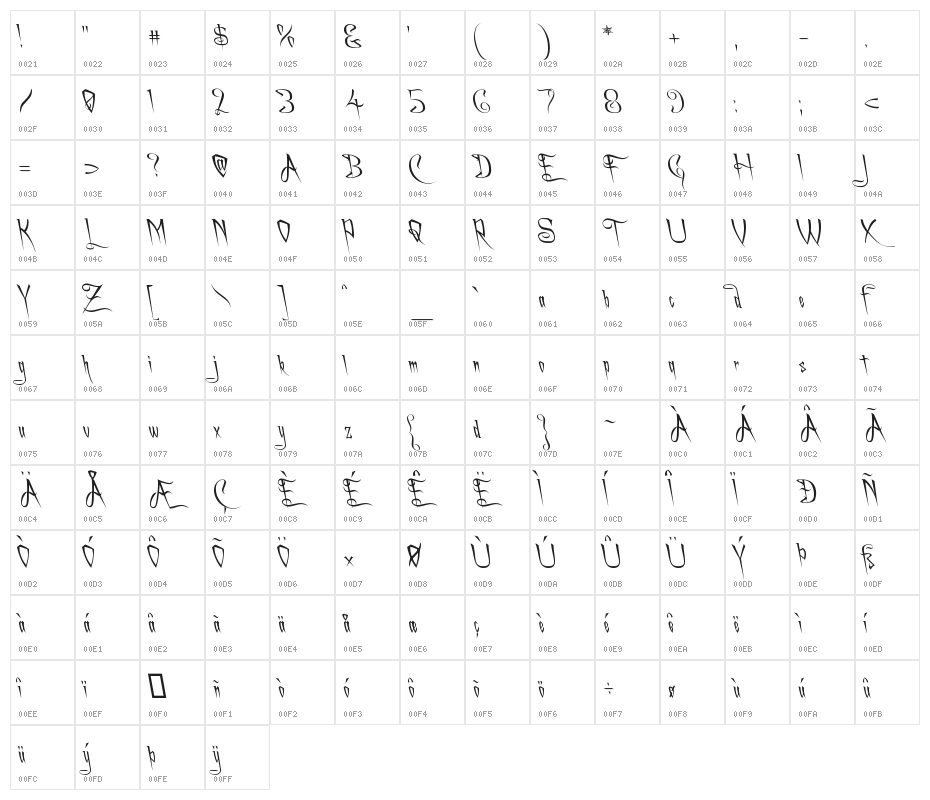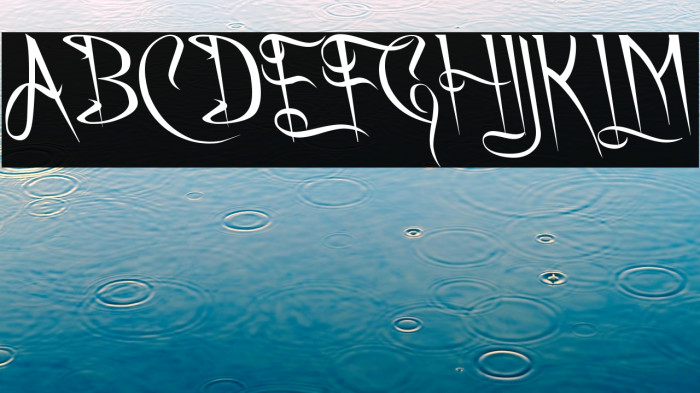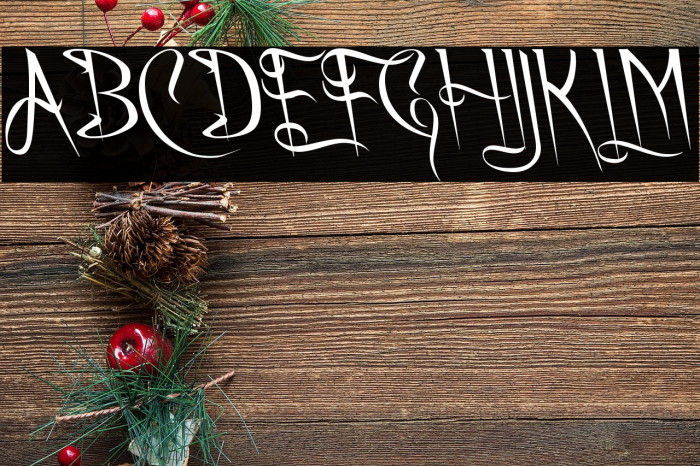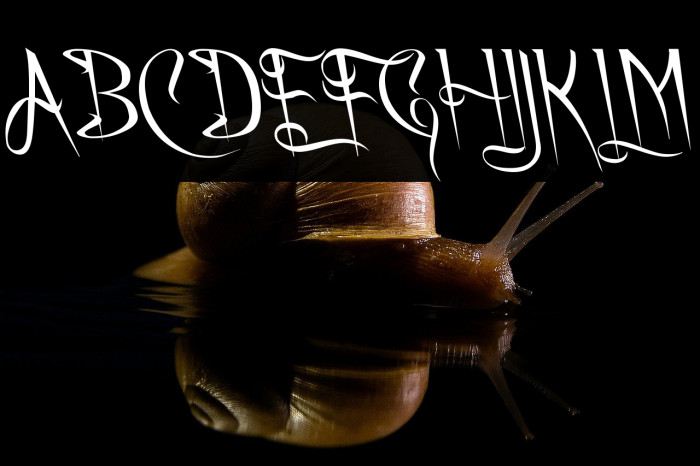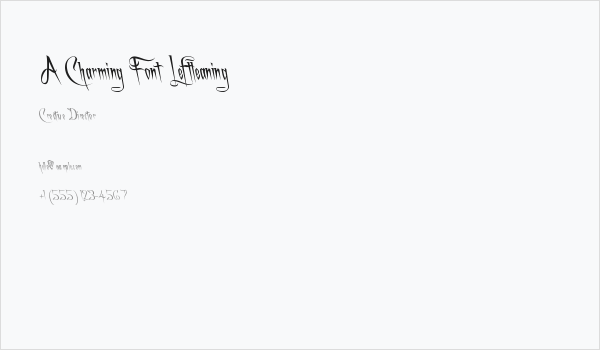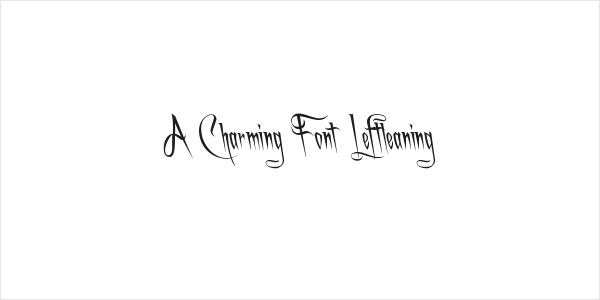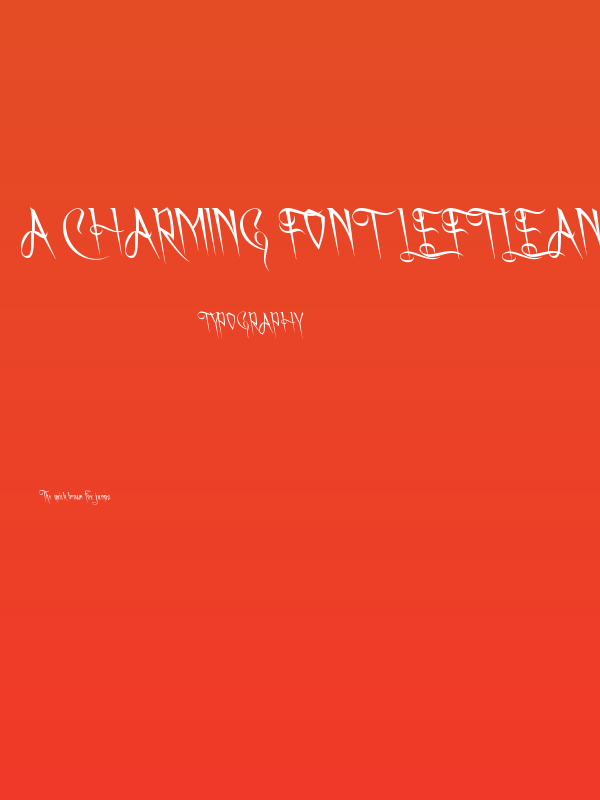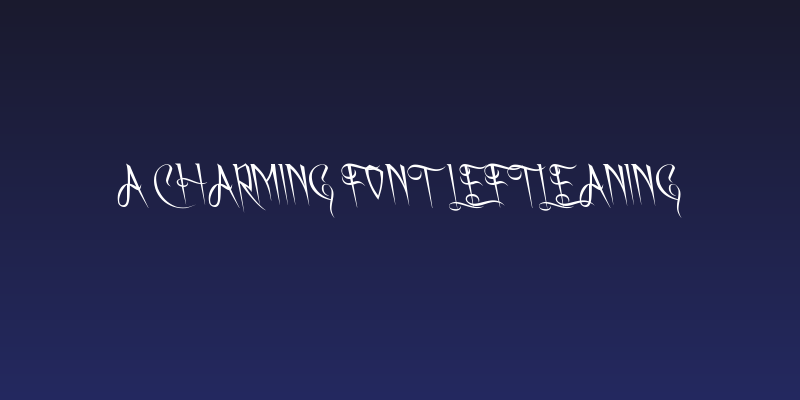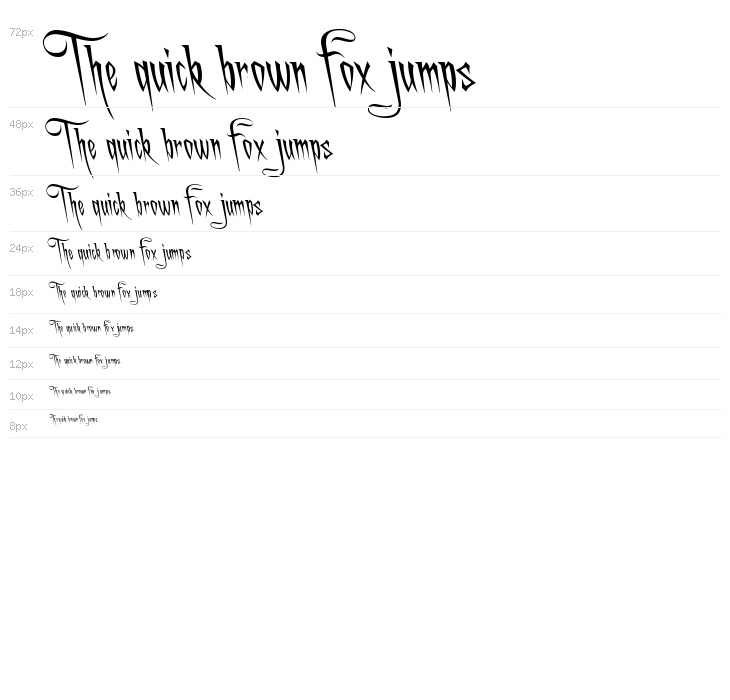
A Charming Font Leftleaning Font
A Charming Font Leftleaning Description
This font features an elaborate and artistic design with a distinct left-leaning slant. The uppercase letters are characterized by sharp, angular lines and dramatic flourishes, giving them a gothic and somewhat whimsical appearance. The lowercase letters maintain the same stylistic elements but are more compact, enhancing readability while preserving the font's unique style. Numbers and special characters follow the same design principles, ensuring consistency across all characters. This font's intricate details and bold strokes make it stand out, ideal for projects that require a touch of elegance and creativity.
| Proposed Projects | Ideal for creative projects such as invitations, posters, and branding materials that require a distinctive and artistic touch. |